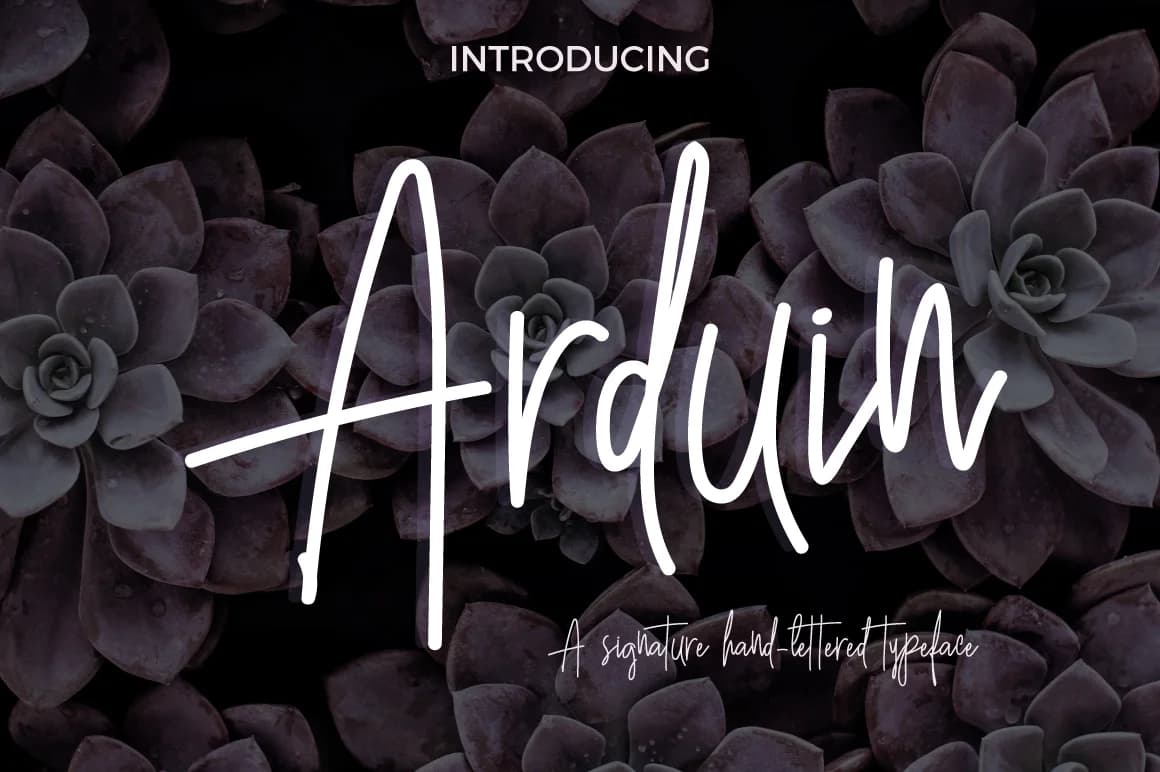
Arduin by paramajandesign is a flowing handwritten script that combines natural letterforms with refined spacing, offering a contemporary take on pen-drawn aesthetics. The font captures genuine warmth and personality while maintaining strong legibility across both digital displays and printed applications of varying sizes. Its organic character and subtle variations make it compelling for creative projects where human touch and craftsmanship matter.
This typeface excels in custom wedding invitation suites, where its graceful strokes convey sophistication and sincere personal connection. Designers also turn to Arduin for personalized thank you cards, hand-drawn branding packages, and artisanal product packaging that demand distinctive visual character. The script works beautifully for boutique event signage, custom gift labeling, and small-batch stationery projects where personality and individuality are essential. Small business owners and independent makers particularly appreciate how the natural variations create genuine character and presence without compromising legibility or professional quality in printed materials.
Whether you're developing limited-edition stationery collections, designing bespoke packaging for handmade goods, creating personalized event materials, or building a cohesive hand-crafted brand identity across print touchpoints, Arduin delivers the distinctive character your projects deserve. Access this script font on Creative Fabrica to bring natural warmth and authenticity to your next creative work.
Arduin Font is a script font that shines as a display or heading face. Pair it with a clean sans-serif or serif font for body text β the contrast creates a clear hierarchy while the two styles stay balanced and easy to read.